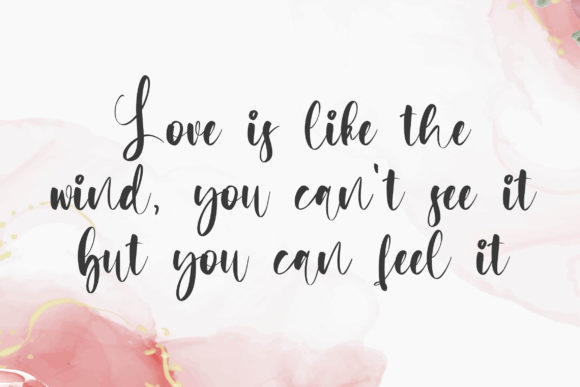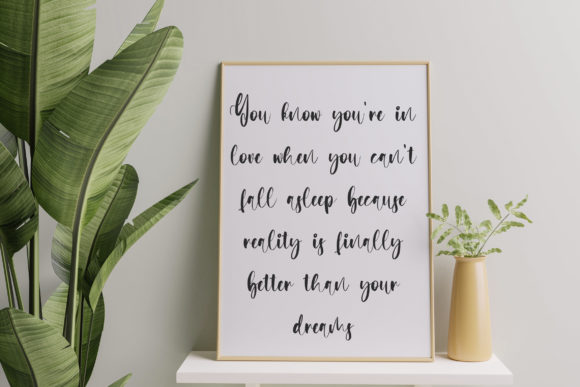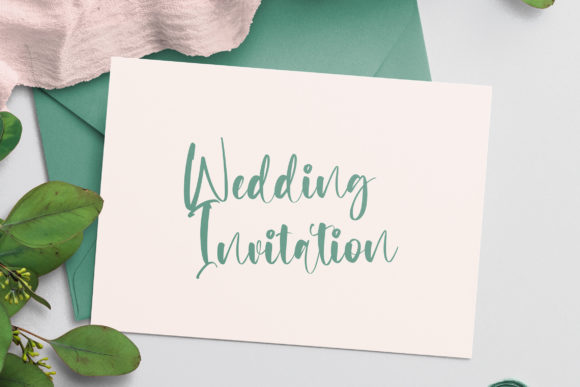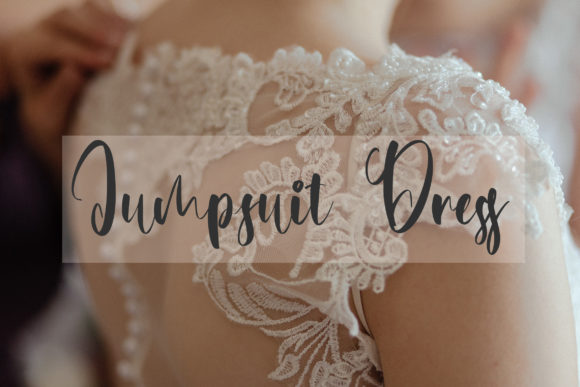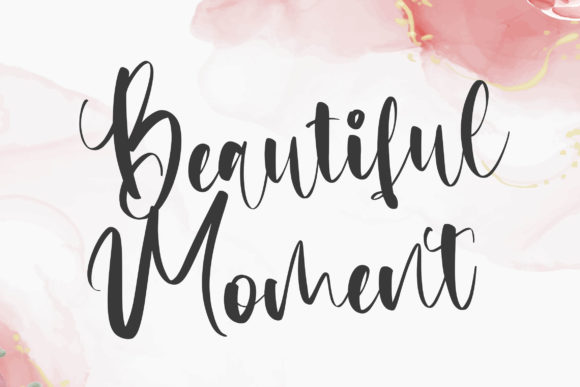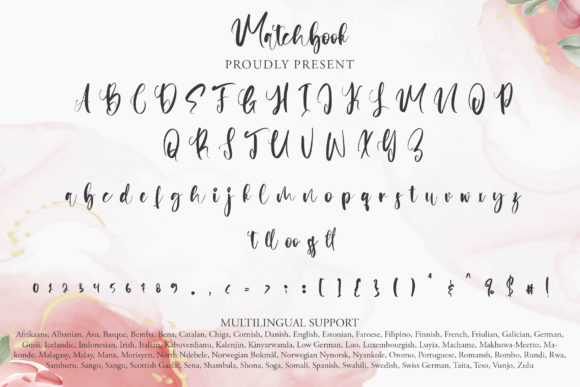
Introduction to Matchbook Font
Have you ever been stuck on a creative project, struggling to find the perfect font to bring your vision to life? That’s exactly what happened to me when I was designing a wedding invitation for a close friend. I wanted something elegant and sophisticated, yet unique and memorable. That’s when I stumbled upon the Matchbook Font – a game-changing design resource that has since become my go-to choice for any high-quality project.
The Matchbook Font is a stunning, refined script font that exudes sophistication and elegance. Its stylish alternates and ligatures make it the perfect match for any creative project, from wedding invitations to luxury branding. And the best part? It’s available for free download, making it an accessible design resource for designers of all levels.
Whether you’re working on a commercial project or a personal passion project, the Matchbook Font is a valuable addition to your design toolkit. With its transparent background and high-quality design, it’s the perfect choice for any designer looking to elevate their work and make a lasting impression.
Key Features of Matchbook Font
- Matchbook Font features a unique, hand-drawn design with a transparent background, making it ideal for overlaying on images and graphics.
- The font includes a range of characters, including uppercase and lowercase letters, numbers, and punctuation marks, making it suitable for various design applications.
Honest Review: Matchbook Font
I recently had the opportunity to experiment with the Matchbook Font, a free download that has gained popularity in the design community. As a designer, I appreciate high-quality fonts that can elevate a creative project and bring it to life. The Matchbook Font delivers in this regard, offering a unique and stylish aesthetic that is sure to captivate your audience.
Here are some aspects that I particularly like about the Matchbook Font:
- ✨ Beautiful, hand-drawn illustrations that add a touch of personality to any design.
- ✨ A wide range of glyphs and characters, making it suitable for various creative projects, from logos to infographics.
- ✨ Transparent background, allowing for seamless integration with any design element.
- ⚠️ Limited font weights and styles, which might limit its versatility in certain design scenarios.
- ⚠️ Some characters may not be optimized for digital use, resulting in pixelation at larger font sizes.
Overall, I’m impressed with the Matchbook Font’s potential to elevate creative projects. While it has its limitations, it remains a valuable design resource for designers seeking a unique, high-quality font. With some careful planning and consideration of its limitations, the Matchbook Font can be a fantastic addition to your design arsenal.
The Matchbook Font is ideal for creating unique and creative designs, such as:
- Advertising graphics
- Editorial designs
To get the most out of the Matchbook Font, experiment with different font sizes, styles, and colors to create visually appealing designs. You can also combine this font with other design resources to create a unique and high-quality design.